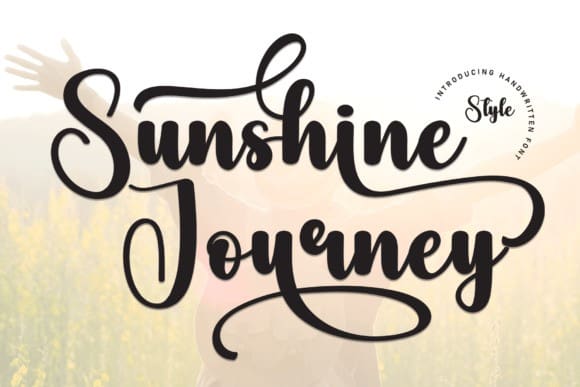
Sunshine Journey Font
Sunshine Journey Font is a magical script font carefully created with a touch of elegance. Whether you’re looking for fonts for Instagram or calligraphy scripts for DIY projects, this font will turn any creative idea into a true piece of art!